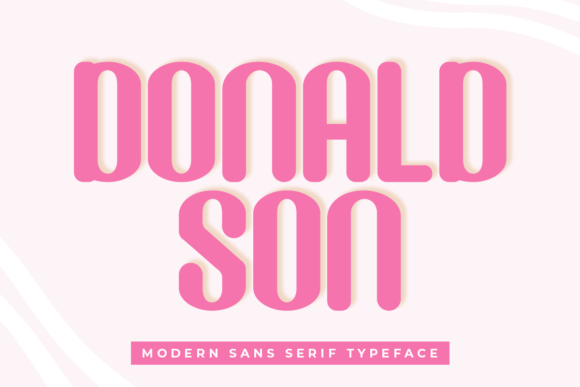
Introducing Donaldson Font: The Fun and Cute Sans Serif Font for Creative Projects
Are you tired of using the same old fonts for your designs? Look no further than the Donaldson Font! This fun and cute sans serif font is perfect for adding a unique touch to your kids’ projects, blog posts, logos, branding, advertisements, and more. Its versatility makes it an excellent choice for designers and crafters who want to create engaging and playful designs.
What is Donaldson Font?
Donaldson Font is a sans serif font that is characterized by its clean and simple lines. It’s a modern font that is perfect for designs that require a fresh and youthful feel. The font is highly legible, making it suitable for use in a variety of applications, from body text to headings and titles.
Features of Donaldson Font
So, what makes Donaldson Font so special? Here are some of its key features:
- Fun and Cute: Donaldson Font has a playful and charming personality that makes it perfect for designs that require a touch of whimsy.
- Versatile: This font can be used for a wide range of projects, from kids’ projects to blog posts, logos, branding, and advertisements.
- Easy to Read: Donaldson Font is highly legible, making it suitable for use in body text and other applications where readability is important.
- Modern: This font has a clean and modern look that makes it perfect for designs that require a fresh and youthful feel.
Uses of Donaldson Font
Donaldson Font is a versatile font that can be used for a wide range of projects. Here are some ideas to get you started:
- Kids’ Projects: Donaldson Font is perfect for kids’ projects, such as school assignments, crafts, and activities.
- Blog Posts: Add a touch of fun and personality to your blog posts with Donaldson Font.
- Logos and Branding: Use Donaldson Font to create fun and playful logos and branding materials for your business or organization.
- Advertisements: Donaldson Font is perfect for use in advertisements, such as flyers, brochures, and social media ads.
- Social Media: Use Donaldson Font to add a touch of personality to your social media posts and graphics.
Tips for Using Donaldson Font
Here are some tips for using Donaldson Font in your designs:
- Use it in combination with other fonts: Donaldson Font pairs well with other fonts, such as serif fonts and script fonts.
- Experiment with different colors: Donaldson Font looks great in a variety of colors, from bright and bold to pastel and soft.
- Use it for headings and titles: Donaldson Font is perfect for use in headings and titles, where its playful and charming personality can really shine.
In conclusion, Donaldson Font is a fun and cute sans serif font that is perfect for adding a unique touch to your designs. Its versatility makes it suitable for use in a wide range of projects, from kids’ projects to blog posts, logos, branding, and advertisements. With its clean and modern look, Donaldson Font is sure to become a favorite among designers and crafters.